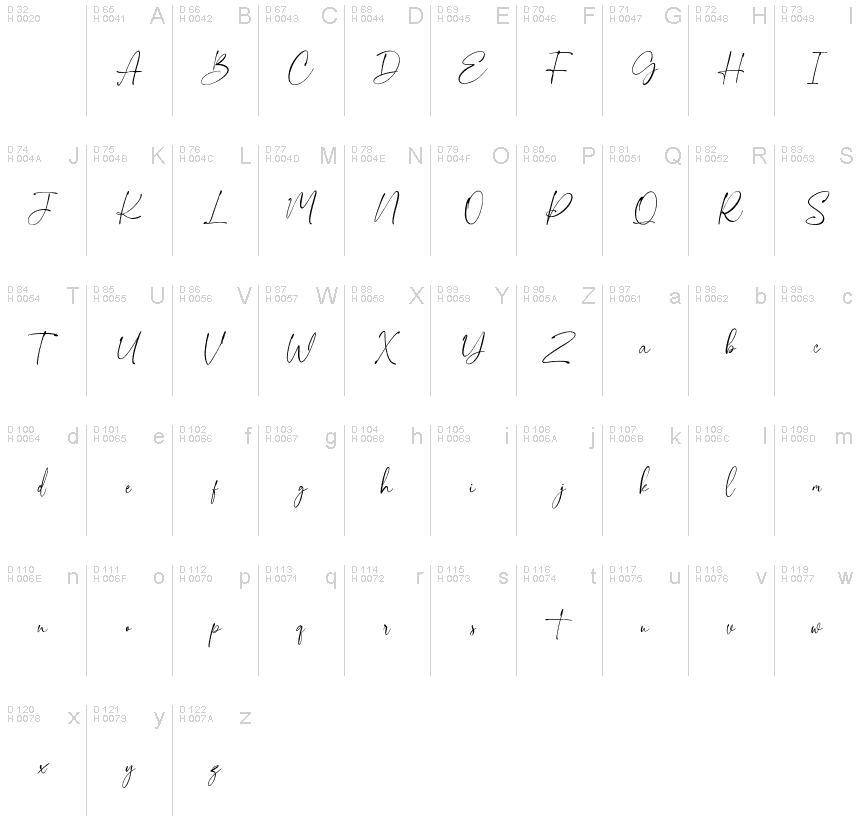
Roselites Free Regular
Roselites is a breathtaking extra-light handwritten signature font designed by the talented Maulana Creative. This semi-condensed typeface exudes elegance and sophistication, making it perfect for a variety of projects. Whether you're looking to create stunning wedding invitations or elegant branding materials, Roselites will add a touch of class to any project. Its delicate lines and graceful curves make it ideal for use in high-end fashion and beauty industries, as well as luxurious home decor designs. Let Roselites elevate your next project with its refined style and undeniable charm.